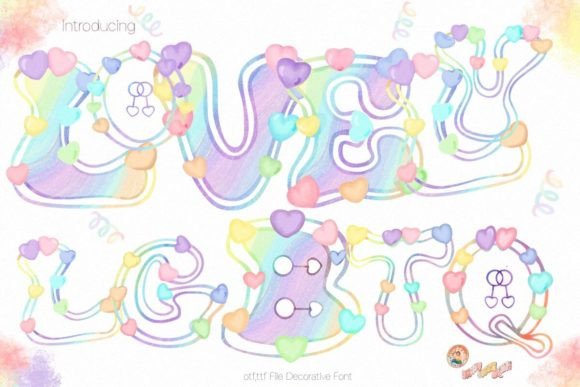
LGBTQ Lovely Font: A Playful and Stylish Font for Your Creative Projects
Are you looking for a font that can add a touch of playfulness and style to your creative projects? Look no further than the LGBTQ Lovely font. This decorative font is perfect for a variety of projects, including branding designs, labels, websites, business cards, and more. In this article, we’ll take a closer look at the LGBTQ Lovely font and explore its features, uses, and benefits.
What is LGBTQ Lovely Font?
LGBTQ Lovely font is a decorative font designed with a youthful spirit. It’s a playful and stylish font that’s perfect for adding a touch of personality to your creative projects. The font features a unique and eye-catching design that’s sure to grab attention. Whether you’re working on a branding design, website, or social media post, the LGBTQ Lovely font is a great choice.
Features of LGBTQ Lovely Font
The LGBTQ Lovely font has several features that make it a great choice for your creative projects. Some of its key features include:
- Playful and stylish design
- Youthful spirit
- Unique and eye-catching design
- Perfect for branding designs, labels, websites, and business cards
- Suitable for casual designs like packaging, posters, flyers, quotes, social media posts, and more
Uses of LGBTQ Lovely Font
The LGBTQ Lovely font is a versatile font that can be used for a variety of projects. Some of the most popular uses of this font include:
- Branding designs: The LGBTQ Lovely font is perfect for creating logos, business cards, and other branding materials.
- Labels: Use the LGBTQ Lovely font to create labels for products, files, and more.
- Websites: Add a touch of personality to your website with the LGBTQ Lovely font.
- Business cards: Create stylish and professional business cards with the LGBTQ Lovely font.
- Casual designs: The LGBTQ Lovely font is also great for casual designs like packaging, posters, flyers, quotes, social media posts, and more.
Benefits of Using LGBTQ Lovely Font
There are several benefits to using the LGBTQ Lovely font for your creative projects. Some of the most significant benefits include:
- Unique and eye-catching design: The LGBTQ Lovely font features a unique and eye-catching design that’s sure to grab attention.
- Playful and stylish: The font has a playful and stylish design that’s perfect for adding a touch of personality to your projects.
- Versatile: The LGBTQ Lovely font is a versatile font that can be used for a variety of projects.
Tips for Using LGBTQ Lovely Font
Here are some tips for using the LGBTQ Lovely font:
- Use it sparingly: Use the LGBTQ Lovely font sparingly to add a touch of personality to your projects.
- Pair it with other fonts: Pair the LGBTQ Lovely font with other fonts to create a unique and eye-catching design.
- Experiment with different sizes: Experiment with different sizes to find the perfect size for your project.
- Use it for headings: Use the LGBTQ Lovely font for headings and titles to add a touch of personality to your projects.
In conclusion, the LGBTQ Lovely font is a playful and stylish font that’s perfect for adding a touch of personality to your creative projects. With its unique and eye-catching design, this font is sure to grab attention. Whether you’re working on a branding design, website, or social media post, the LGBTQ Lovely font is a great choice. So why not give it a try and see the difference it can make?
- What is the LGBTQ Lovely font? The LGBTQ Lovely font is a decorative font designed with a youthful spirit. It’s a playful and stylish font that’s perfect for adding a touch of personality to your creative projects.
- What are the features of the LGBTQ Lovely font? The LGBTQ Lovely font features a unique and eye-catching design, a playful and stylish design, and a youthful spirit.
- What are the uses of the LGBTQ Lovely font? The LGBTQ Lovely font can be used for a variety of projects, including branding designs, labels, websites, business cards, and more.
- What are the benefits of using the LGBTQ Lovely font? The benefits of using the LGBTQ Lovely font include its unique and eye-catching design, playful and stylish design, versatility, and ease of use.